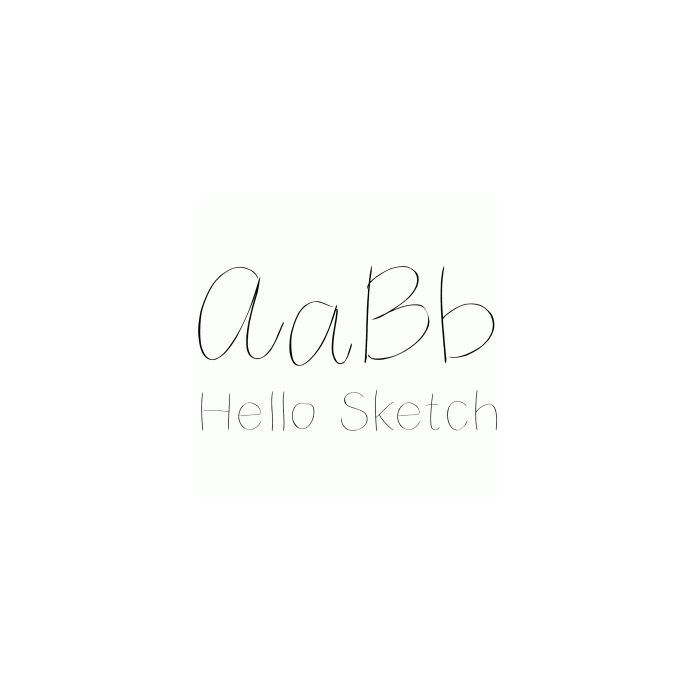
hello sketch font
This font was designed to be sketched and not cut out. Find the cuttable version in my portfolio. It includes the alphabet, numbers, and basic punctuation. www.dresdencarrie.com